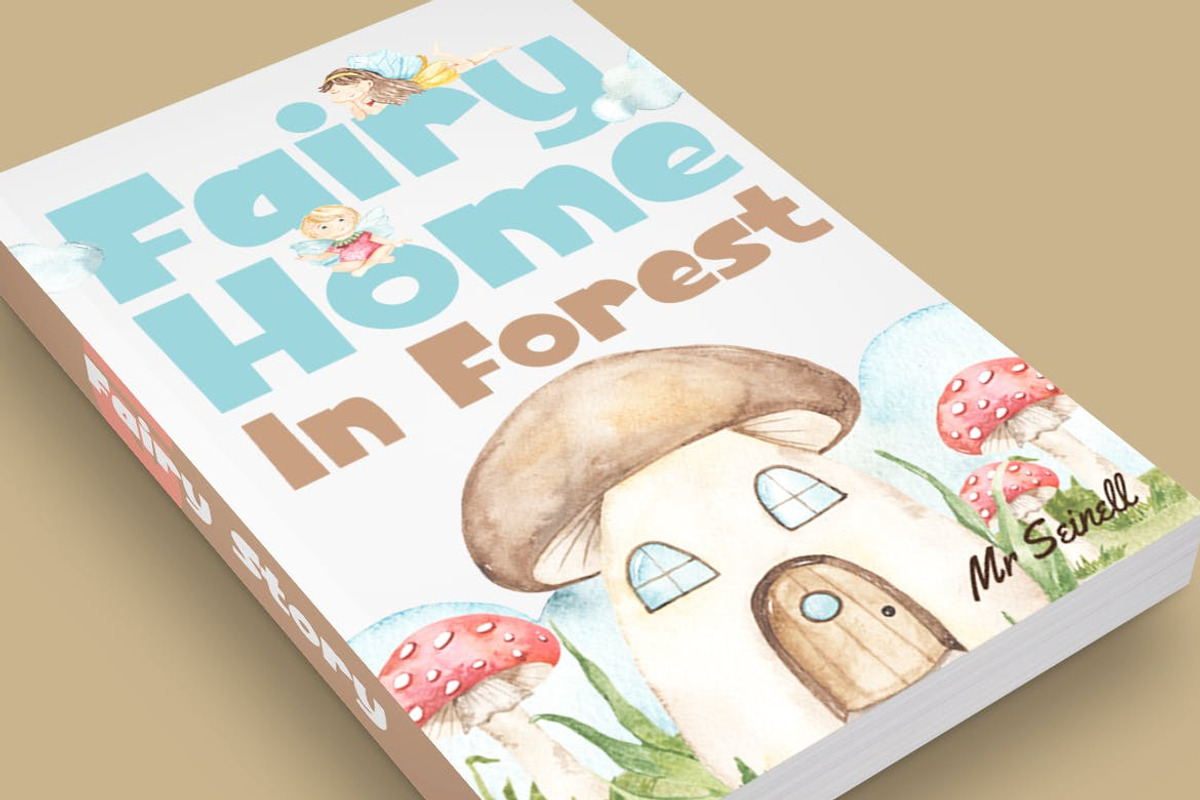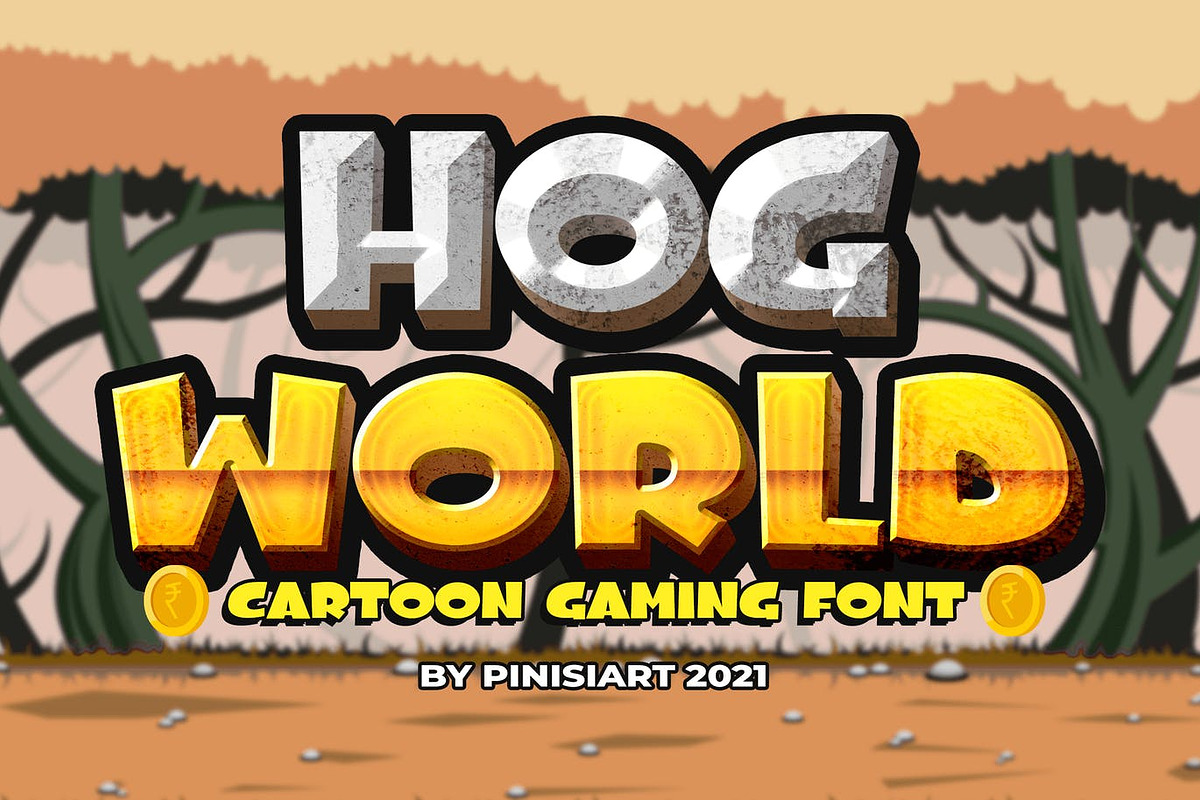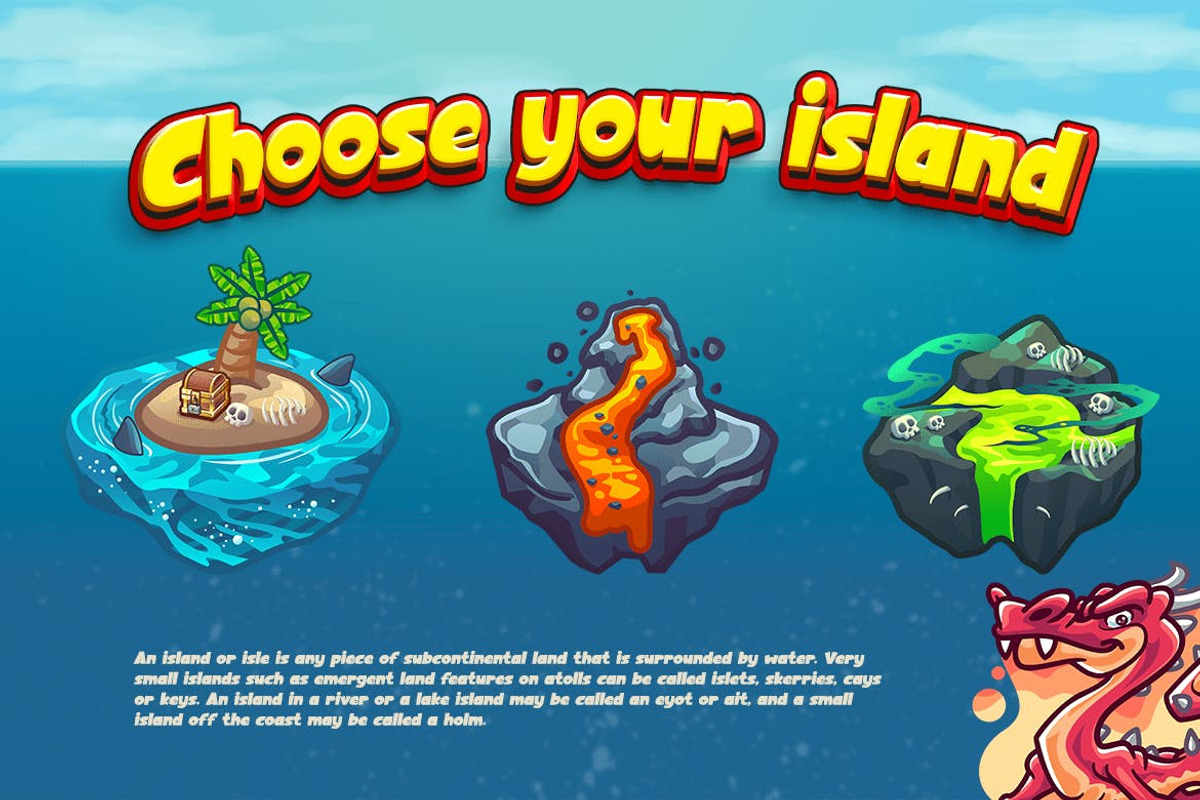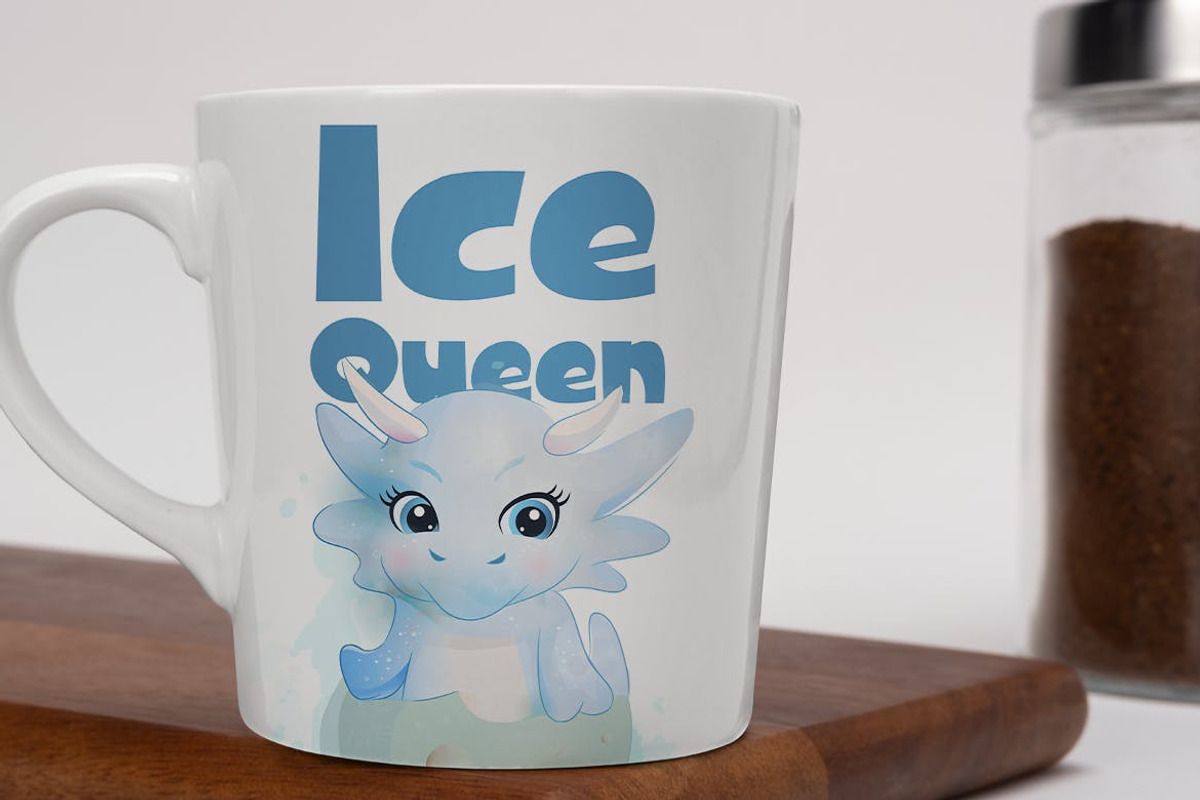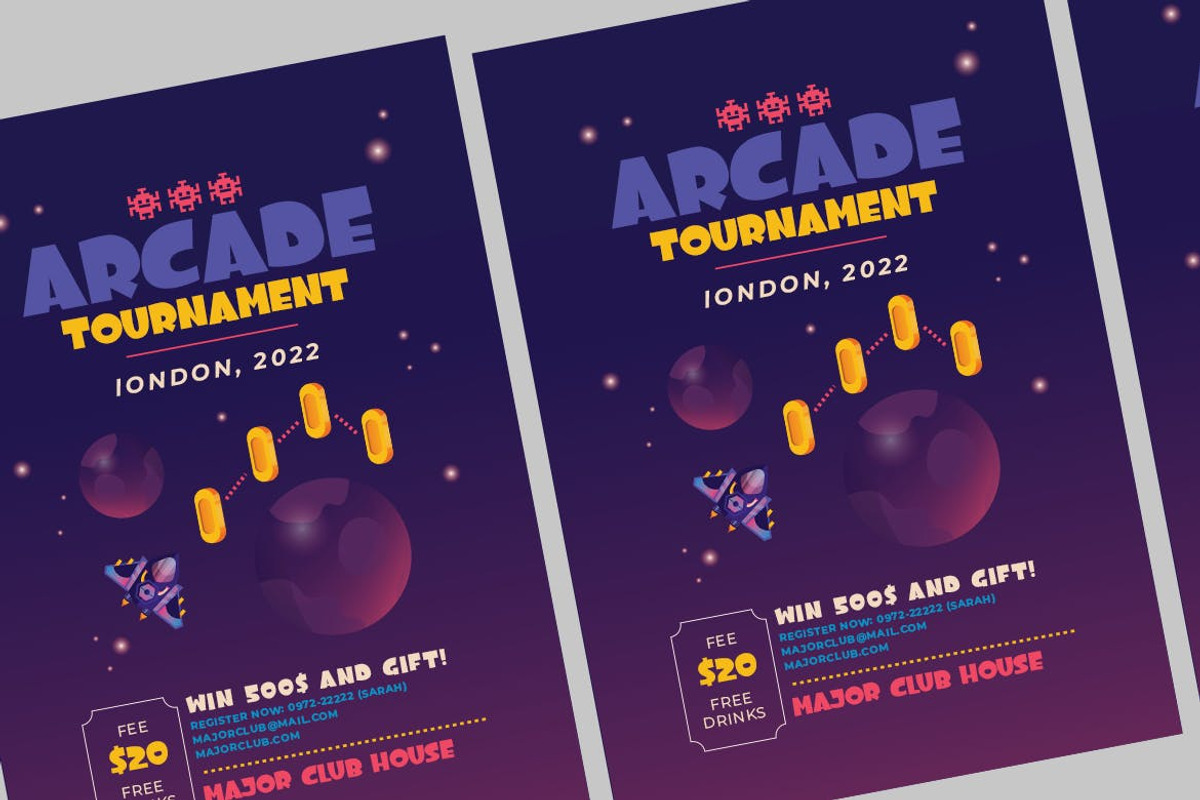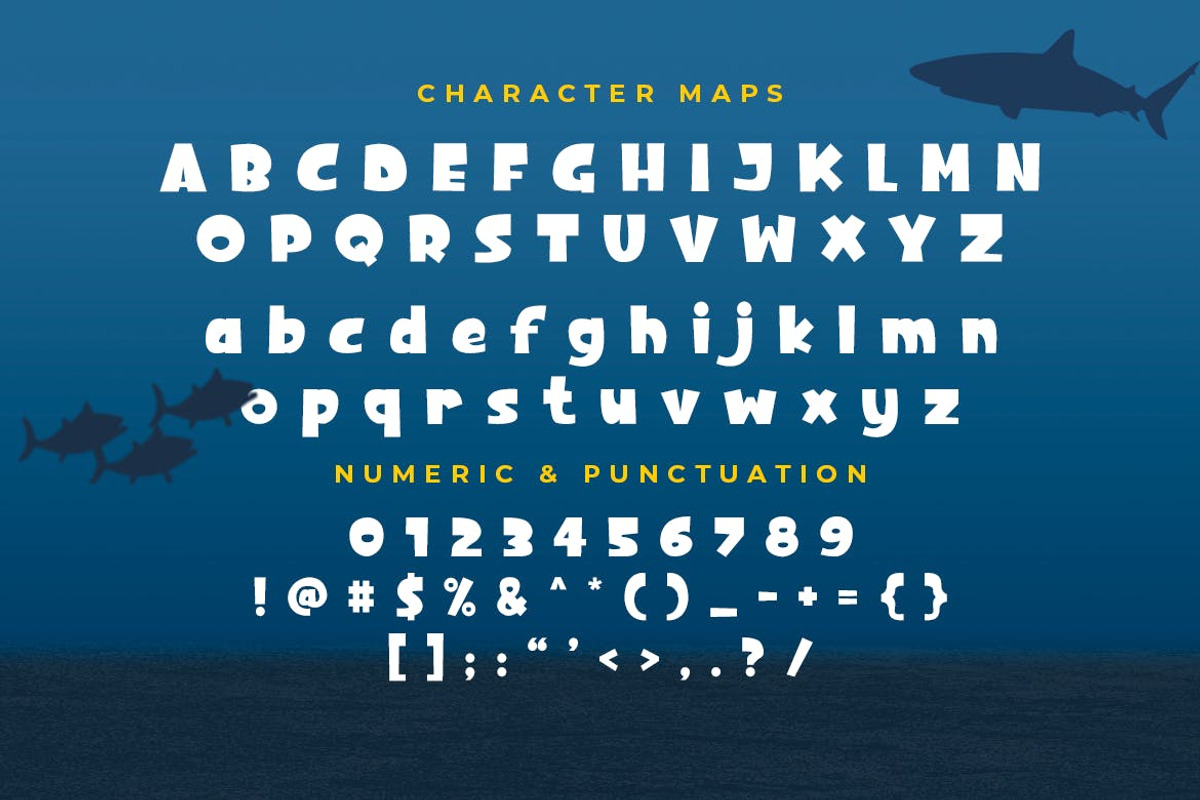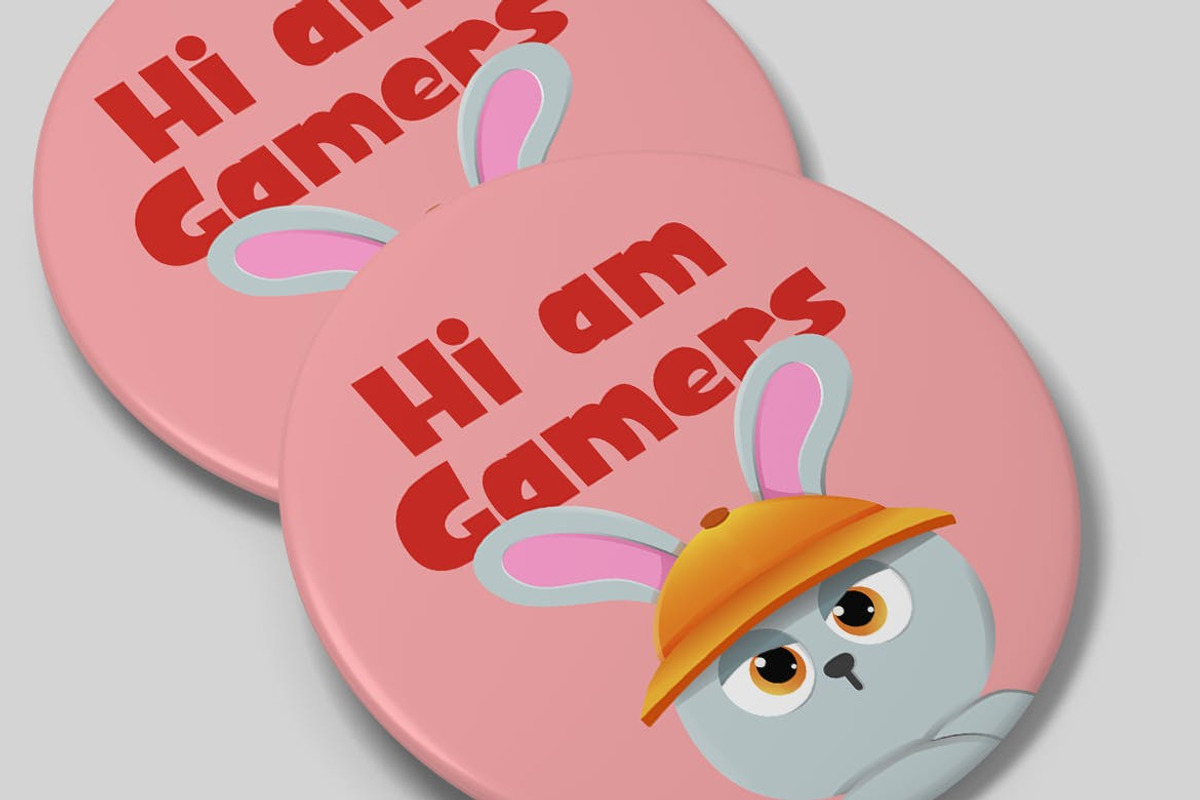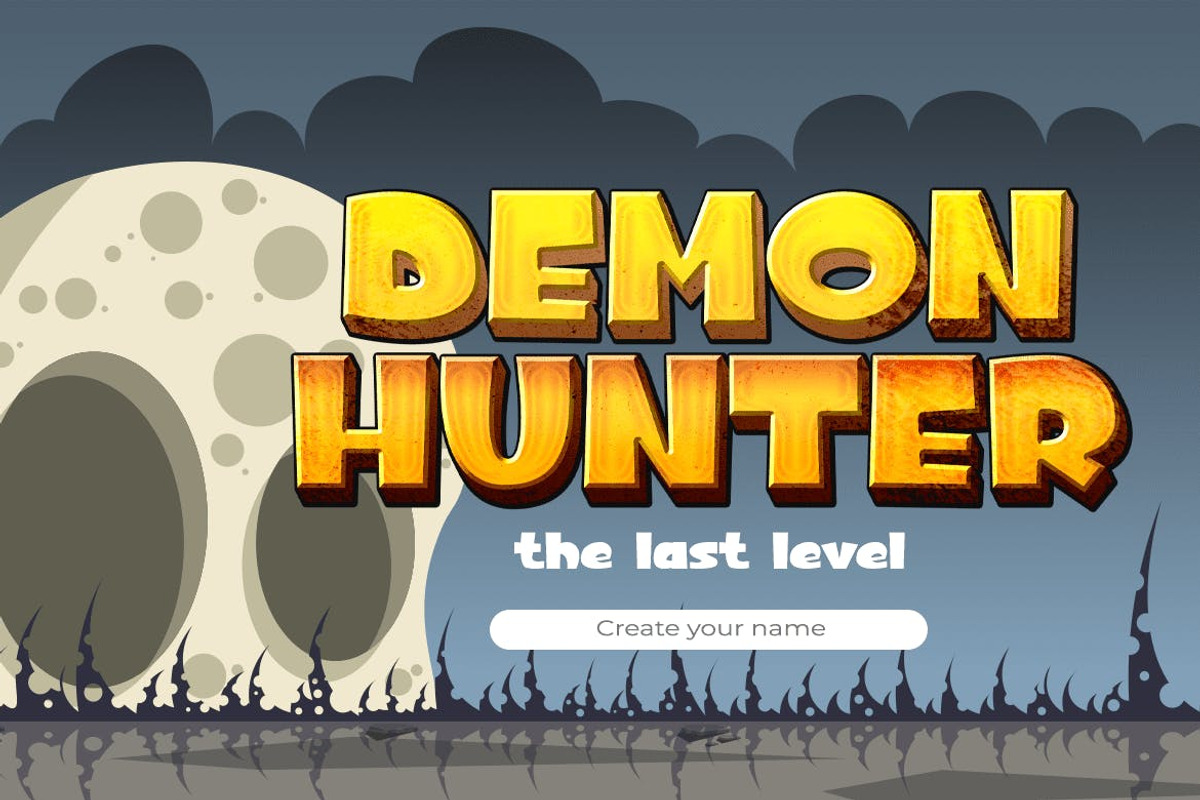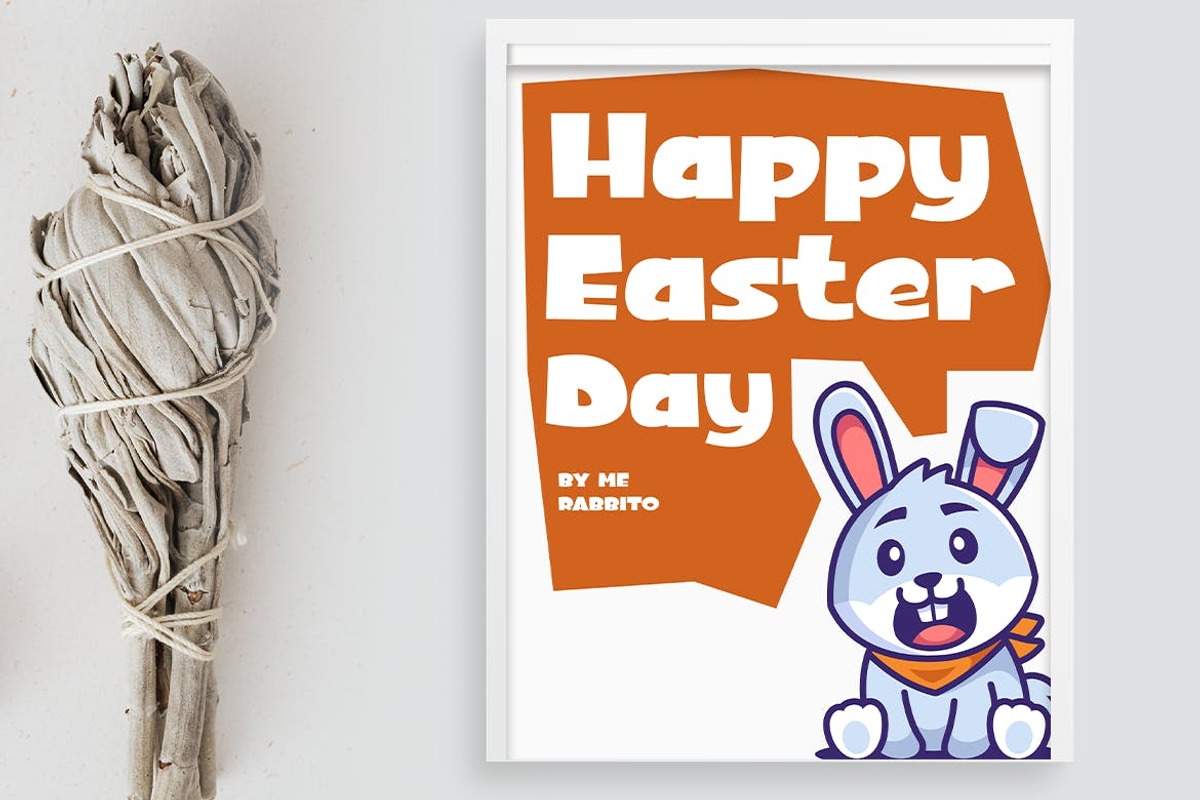
HOG WORLD – Cartoon Gaming Font
Hog World – Cartoon Font
They are big and bold yet still bring you a smile. HOG WORLD is the man.
Suit perfectly for cute children's books market, online games, stationary, school supplies font, poster, movie title, youtube covers, youtube thumbnails, social media page covers, and so on…